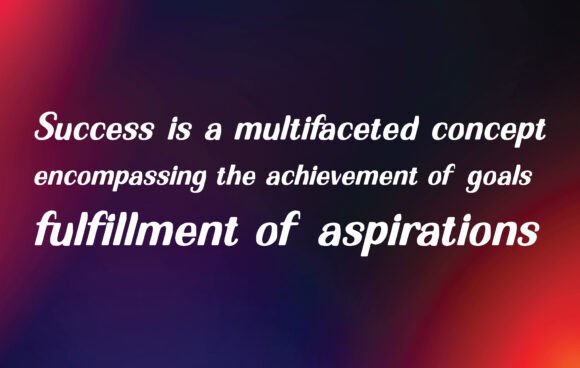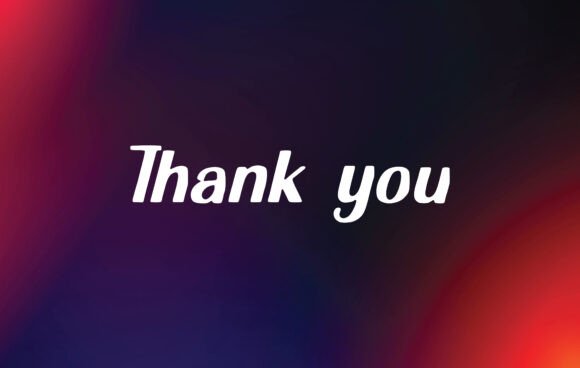
Aspen Font: The Ultimate Go-to Favorite for Designers and Crafters
Are you tired of using the same old fonts in your designs? Look no further than the Aspen Font! This versatile and eye-catching font is made to bring your creative ideas to life. With its clear and easy-to-read design, it’s perfect for both titles and body text. In this article, we’ll explore the features and benefits of the Aspen Font, and why it’s a great choice for designers and crafters alike.
What is Aspen Font?
Aspen Font is a modern and stylish font that’s designed to be a go-to favorite for designers and crafters. Its unique design makes it stand out from other fonts, while its clarity and readability make it perfect for a wide range of applications. Whether you’re designing magazine covers, t-shirts, social media posts, branding, wedding invitations, or greeting cards, the Aspen Font is a great choice.
Key Features of Aspen Font
- Versatility: The Aspen Font is designed to be versatile, making it perfect for a wide range of applications, from titles and body text to signage and branding.
- Eye-catching: The font’s unique design makes it stand out from other fonts, adding a touch of personality to your designs.
- Clear and Easy to Read: The Aspen Font is designed to be clear and easy to read, making it perfect for both titles and body text.
- Style and Personality: The font’s modern design gives it a stylish and personality-filled feel, making it perfect for designers and crafters who want to add a touch of elegance to their work.
Why Choose Aspen Font?
So why choose the Aspen Font over other fonts? Here are just a few reasons:
- Perfect for a Wide Range of Applications: The Aspen Font is perfect for a wide range of applications, from magazine covers and t-shirts to social media posts and branding.
- Easy to Read: The font’s clear and easy-to-read design makes it perfect for body text, while its stylish design makes it perfect for titles.
- Adds a Touch of Elegance: The Aspen Font’s modern design gives it a stylish and elegant feel, making it perfect for designers and crafters who want to add a touch of sophistication to their work.
- Great for Branding: The font’s unique design makes it perfect for branding, allowing you to create a consistent and recognizable visual identity for your business or brand.
How to Use Aspen Font
Using the Aspen Font is easy! Here are just a few ways you can use it in your designs:
- Magazine Covers: Use the Aspen Font to create eye-catching magazine covers that grab attention.
- T-Shirts: Use the font to create stylish and modern t-shirt designs that stand out.
- Social Media Posts: Use the Aspen Font to create engaging and stylish social media posts that get noticed.
- Branding: Use the font to create a consistent and recognizable visual identity for your business or brand.
- Wedding Invitations: Use the Aspen Font to create elegant and stylish wedding invitations that set the tone for your special day.
- Greeting Cards: Use the font to create stylish and modern greeting cards that stand out.
In conclusion, the Aspen Font is a versatile and eye-catching font that’s perfect for designers and crafters alike. Its clear and easy-to-read design makes it perfect for both titles and body text, while its stylish design gives it a touch of elegance and sophistication. Whether you’re designing magazine covers, t-shirts, social media posts, branding, wedding invitations, or greeting cards, the Aspen Font is a great choice. So why not give it a try and see how it can bring your creative ideas to life?